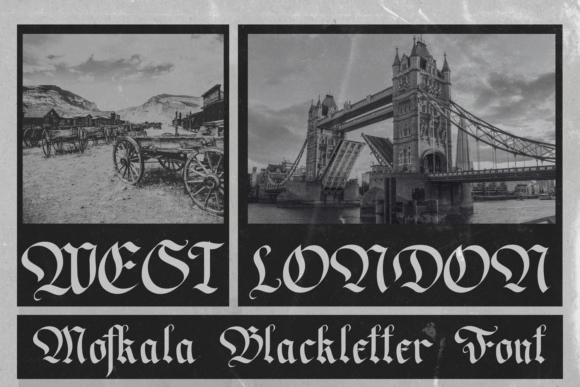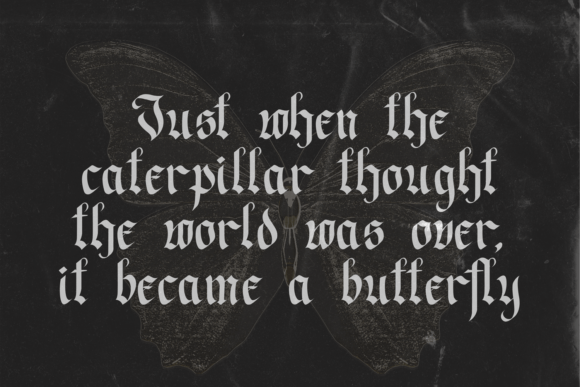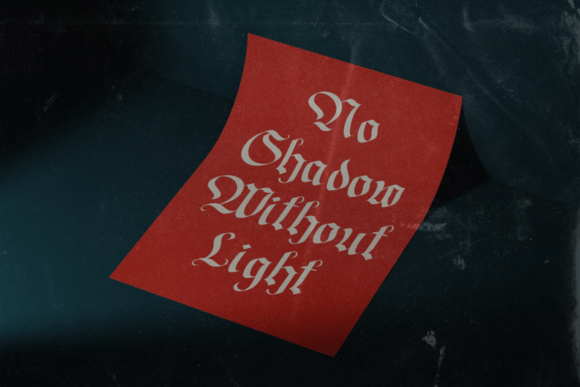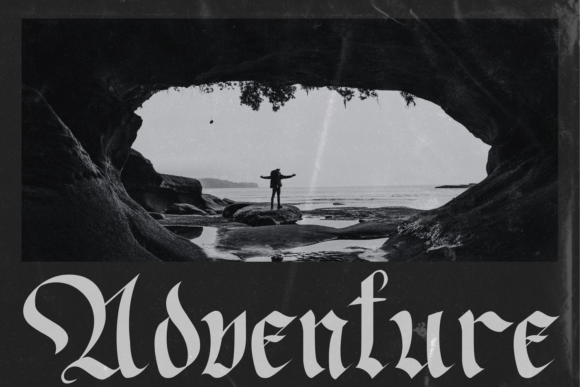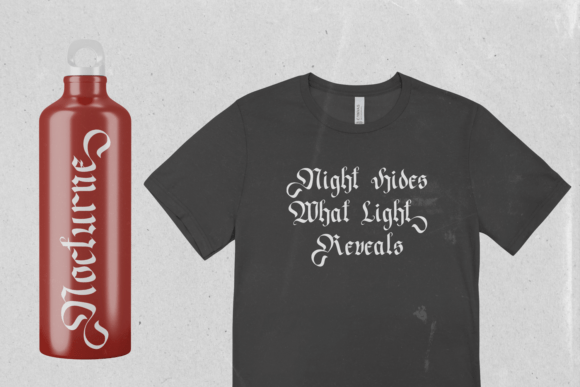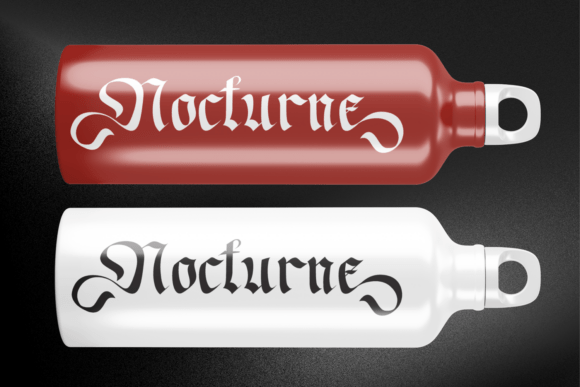
Introduction to Mofkala Font
Remember that moment when you stumbled upon the perfect font to elevate your design project? For many creatives, it’s a game-changing moment that can make all the difference between a good design and a great one. As designers, we’re constantly on the lookout for typography that not only complements our style but also adds an extra layer of depth and emotion to our work.
Enter the Mofkala Font, a stunning blackletter display font that’s about to revolutionize the way you approach your creative projects. With its bold, high-quality design, Mofkala Font is perfect for music posters, book covers, magazine layouts, and packaging that needs to make a statement. Whether you’re working on a project that requires a radical undertone or a dramatic aesthetic, Mofkala Font is your go-to design resource for creating striking social media graphics and memorable designs.
Key Features of Mofkala Font
- High-quality font design, ideal for creative projects and professional use, with a unique and stylish aesthetic.
- Unique characteristics include a modern and elegant feel, making it perfect for branding, typography, and creative projects.
Honest Review: Mofkala Font
As a designer, I’m always on the lookout for high-quality design resources to elevate my creative projects. Recently, I stumbled upon the Mofkala Font, and I’m excited to share my honest review with you.
- ✨ The Mofkala Font offers a unique and modern aesthetic that’s perfect for digital and print designs.
- ✨ The high quality of the font ensures crisp and clear typography, even at large sizes.
- ⚠️ The font may not be suitable for projects requiring complex typography or intricate layouts.
Overall, I’m impressed with the Mofkala Font’s design and versatility. While it may have some limitations, it’s an excellent resource for designers looking for a high-quality, modern font for their creative projects.
The Mofkala Font is ideal for creating a wide range of designs, including logos, business cards, social media graphics, and presentations. It is also great for use in creative projects that require a high-quality, transparent background.